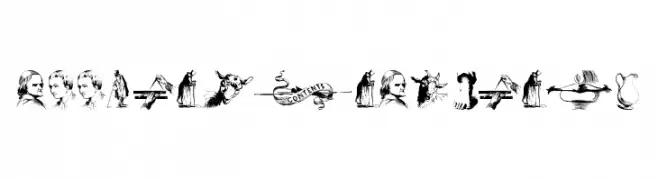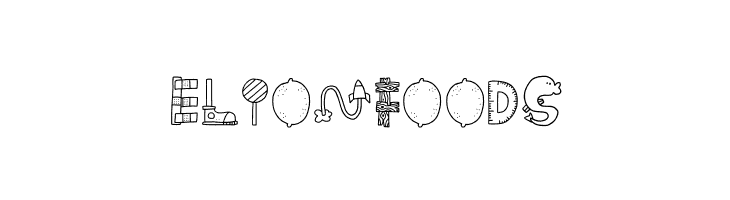
A decorative font with charming animal illustrations for each character.
A whimsical and decorative font with each character represented by a unique object or character.
A decorative and artistic font with intricate illustrations and vintage tattoo art elements.
A playful, hand-drawn font with whimsical, child-like illustrations.
A bold, geometric pictogram icon set for signage and wayfinding.
A playful font with paw print accents, perfect for whimsical and animal-themed designs.
A pictographic icon font themed around Thai culture and landmarks.
Illustrative display font with hand-drawn vintage sketches for each character.
Indonesian cultural and landmark icon set in a bold, pictographic style.
A collection of decorative hieroglyphic symbols inspired by ancient Egyptian writing.